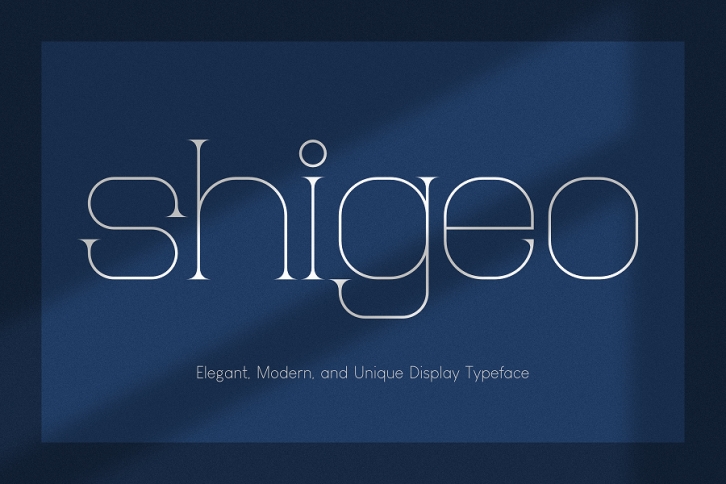
Presenting Shigeo, taken from a male name in Japan, which means a man full of luxury. This font is a unique modern display font because of the combination of serif and sans serif shapes that are packaged in an elegant, luxurious, and unique way.
Shigeo is suitable for branding projects, product design and packaging, labels, wedding designs, photography, invitations, and other projects that require a touch of luxury, elegance, and uniqueness.